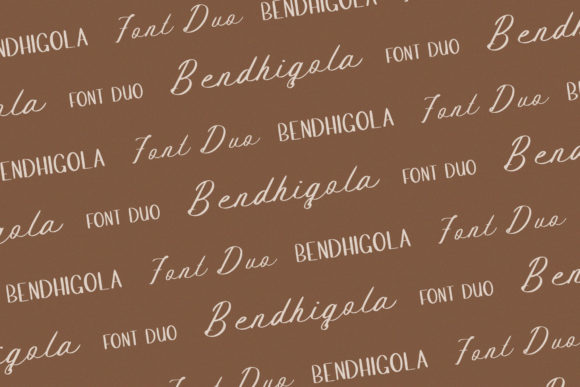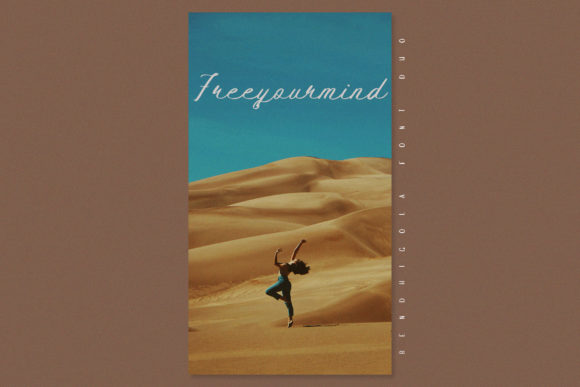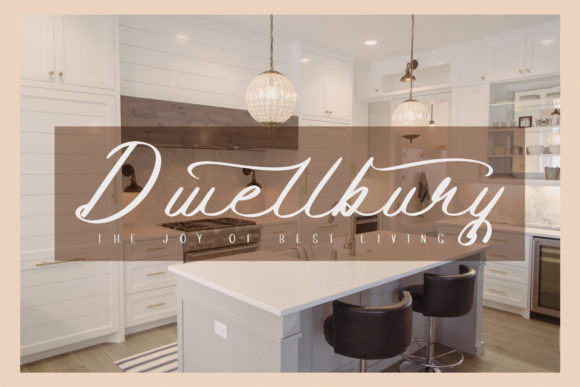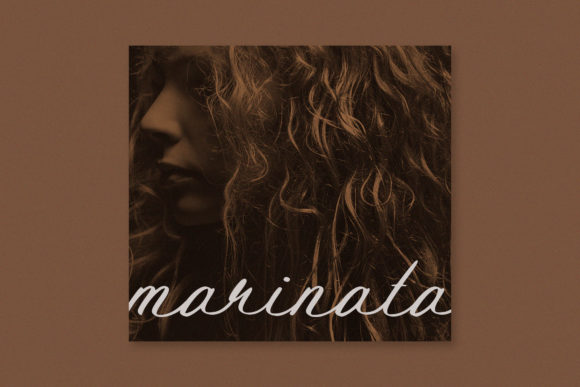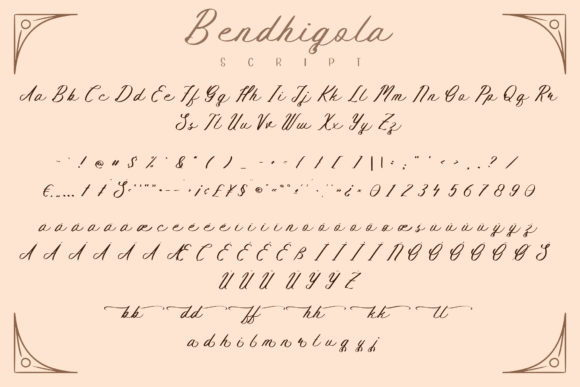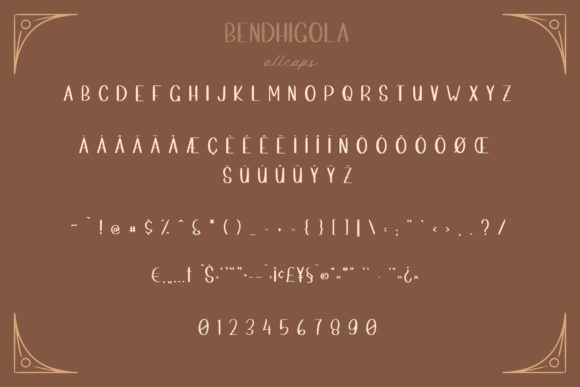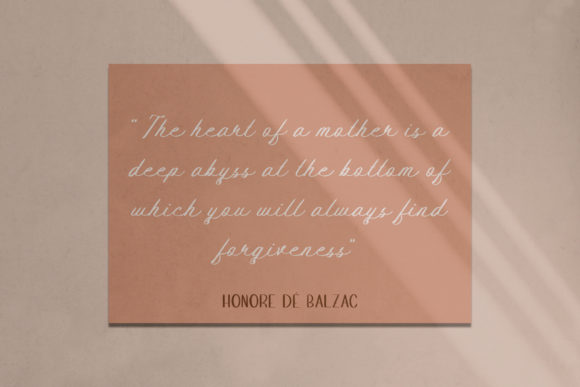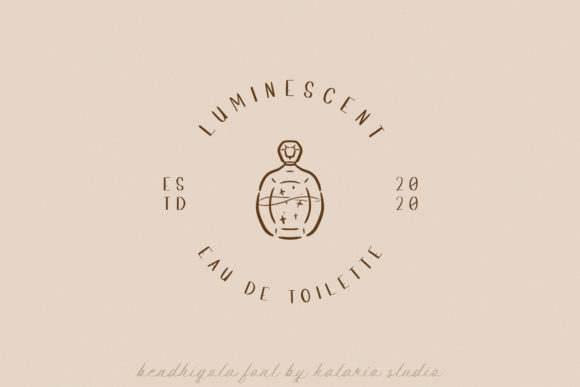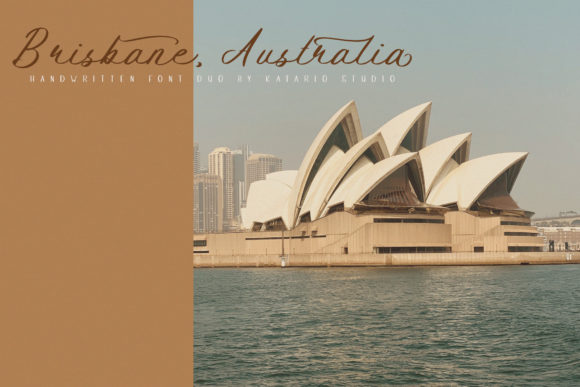
Bendhigola Font
About Bendhigola Font
Bendhigola is a magical handwritten font carefully created with a touch of elegance. This is a beautiful combination of timeless elegance and authentic calligraphy. It features an incredibly classic style, while still keeping a friendly feel. This is the perfect font for making original and outstanding designs.